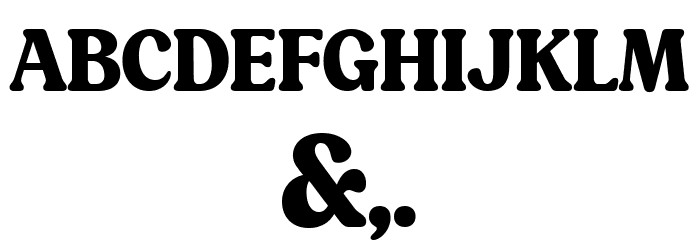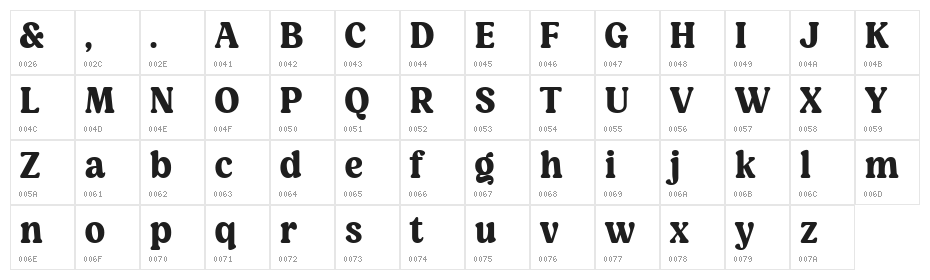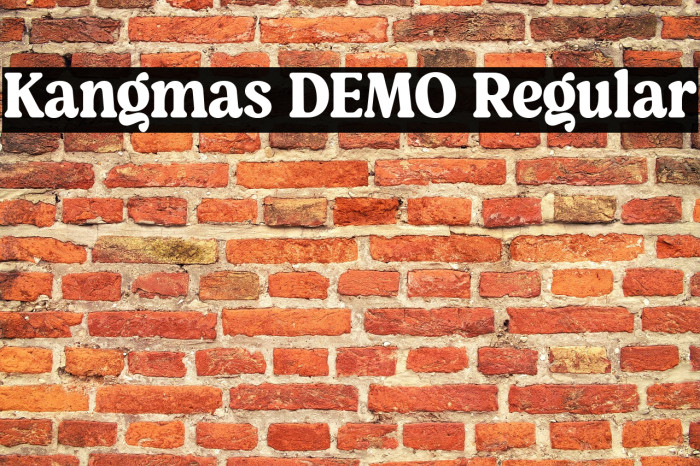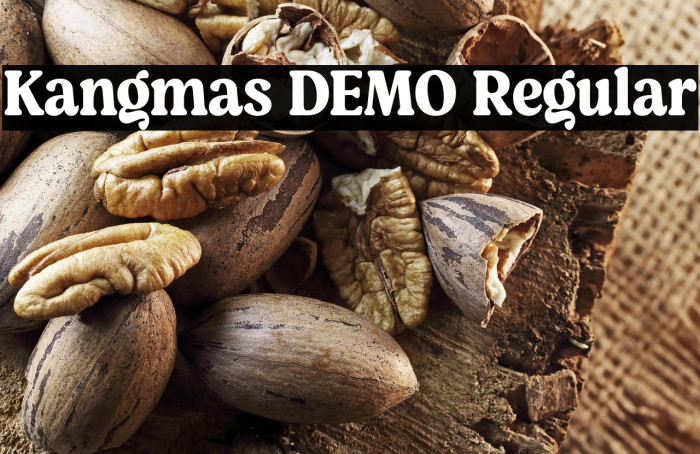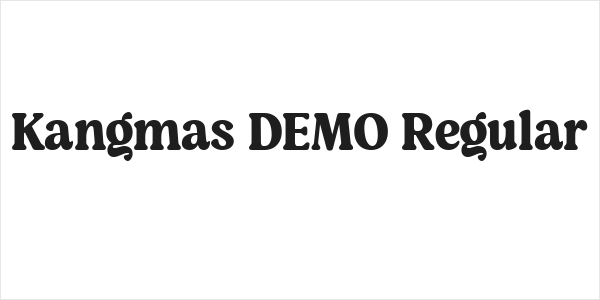
Kangmas DEMO Regular Font
Kangmas DEMO Regular Description
This font features a bold and robust design with thick strokes and rounded edges, giving it a strong and friendly appearance. The uppercase letters are slightly condensed, while the lowercase letters maintain a consistent width, providing a harmonious balance. The font exhibits a playful yet professional style, making it versatile for various design applications. The special characters, such as the ampersand and punctuation marks, are uniquely styled to complement the overall aesthetic. This font's boldness and character make it suitable for impactful headlines and branding projects.